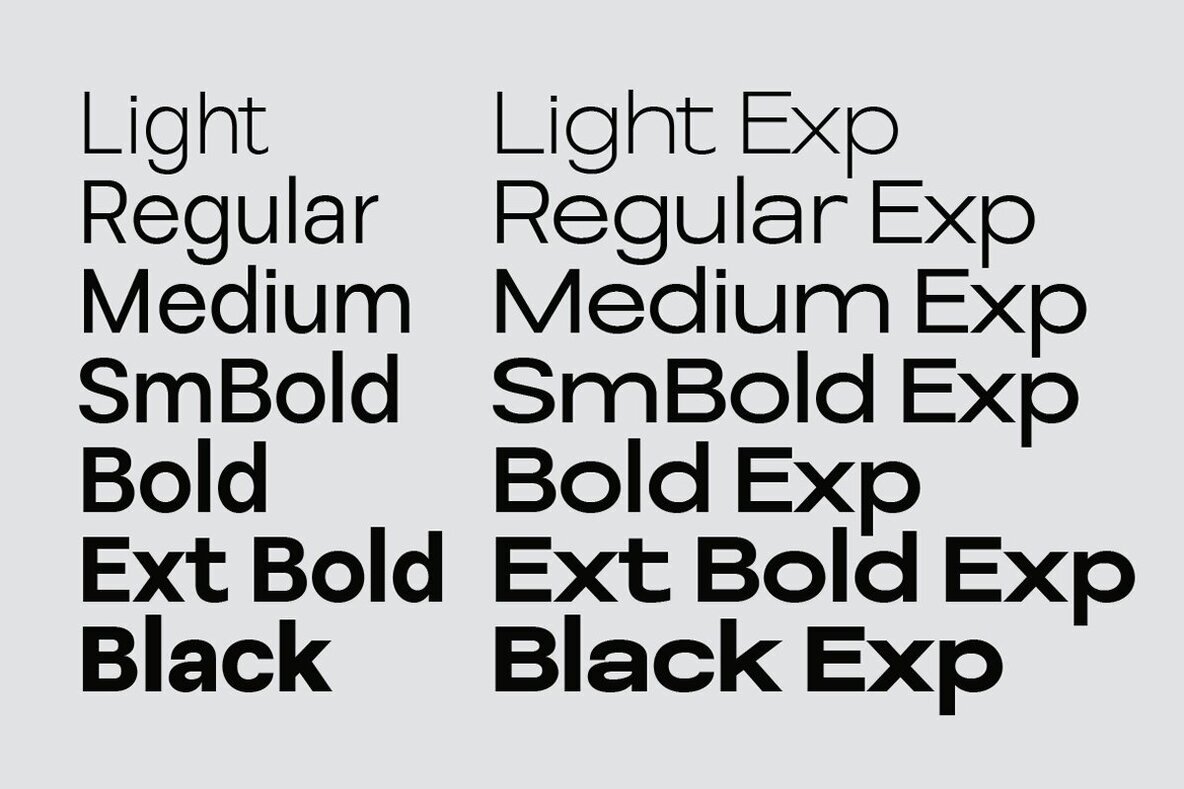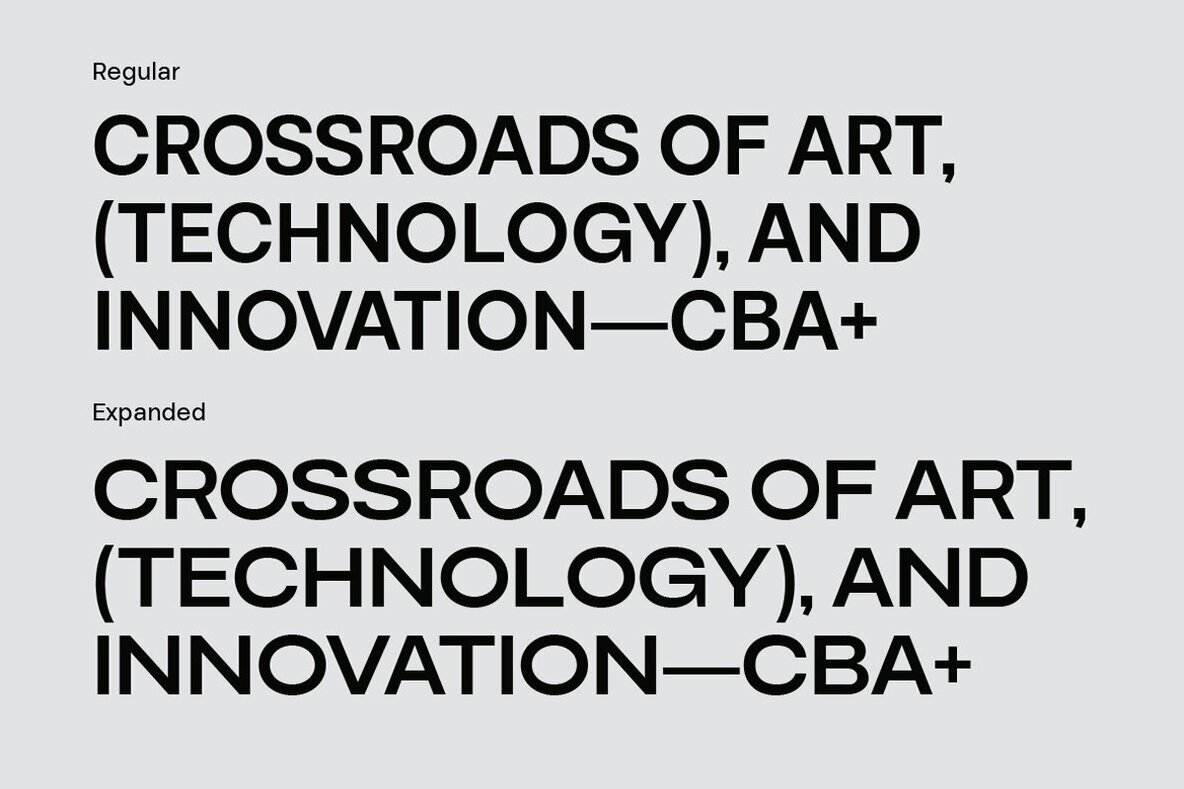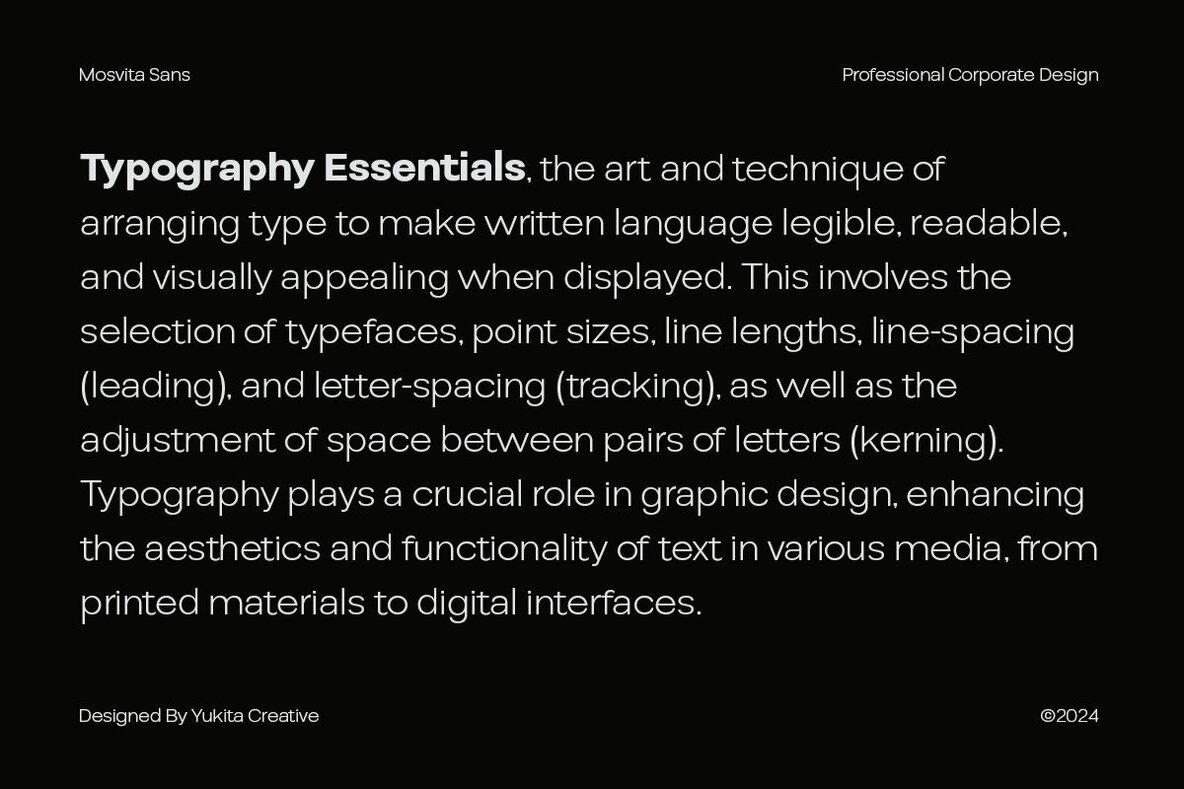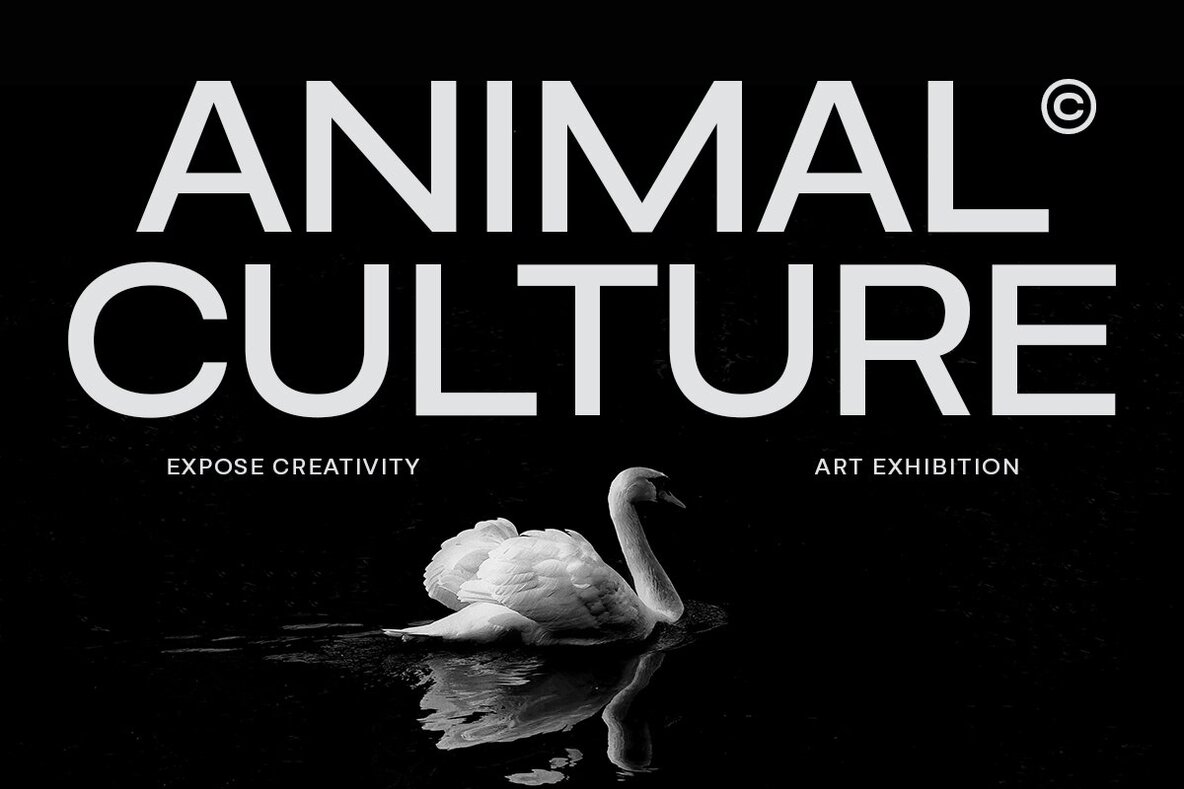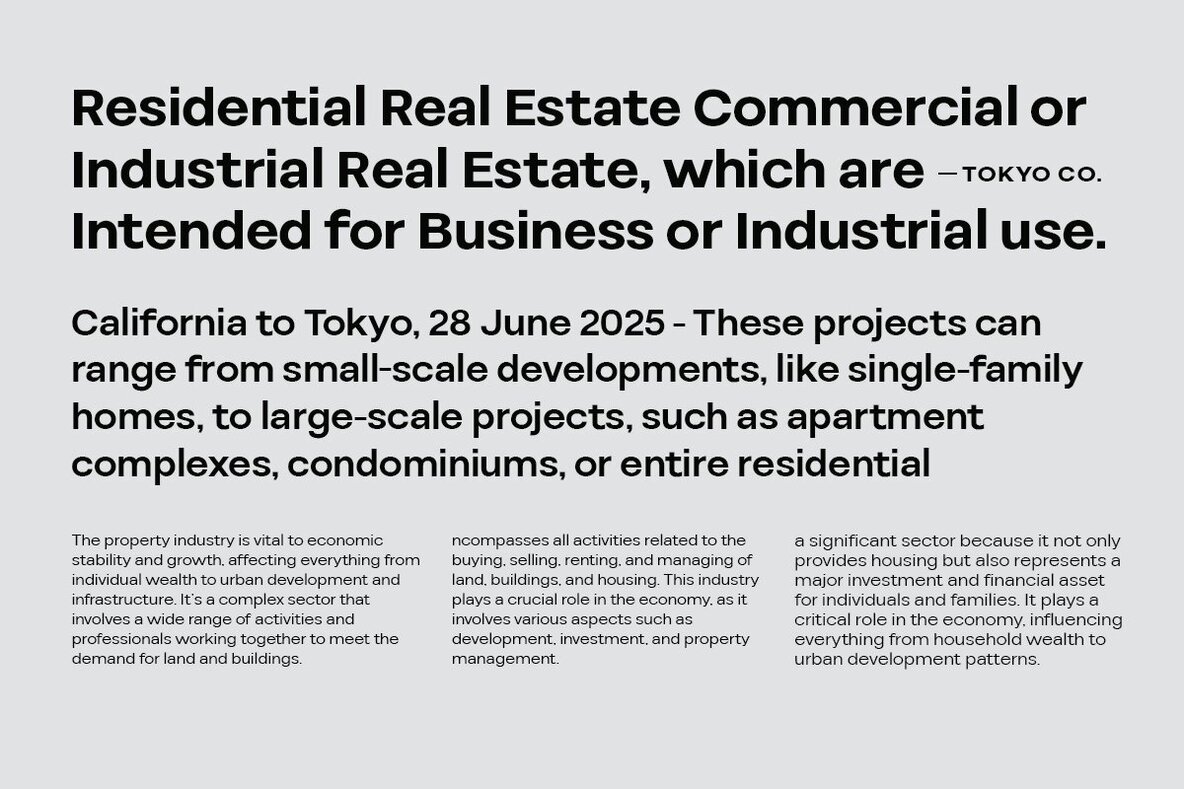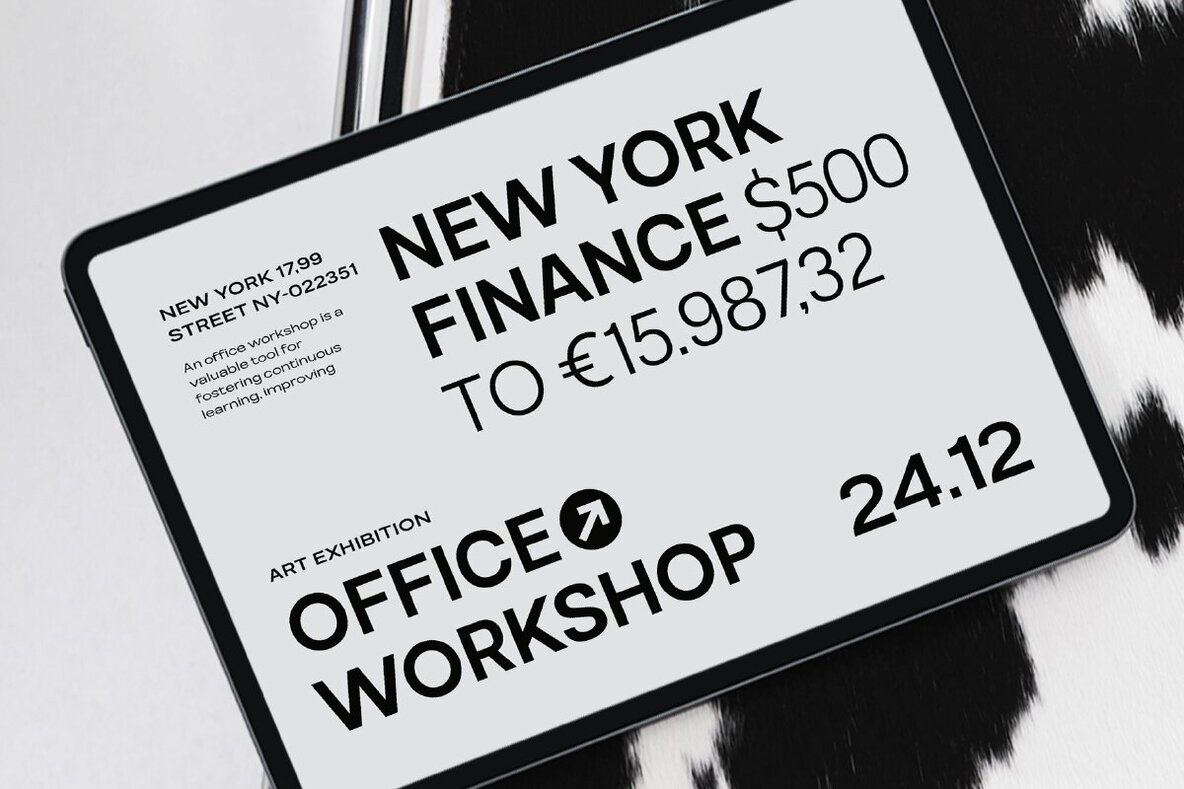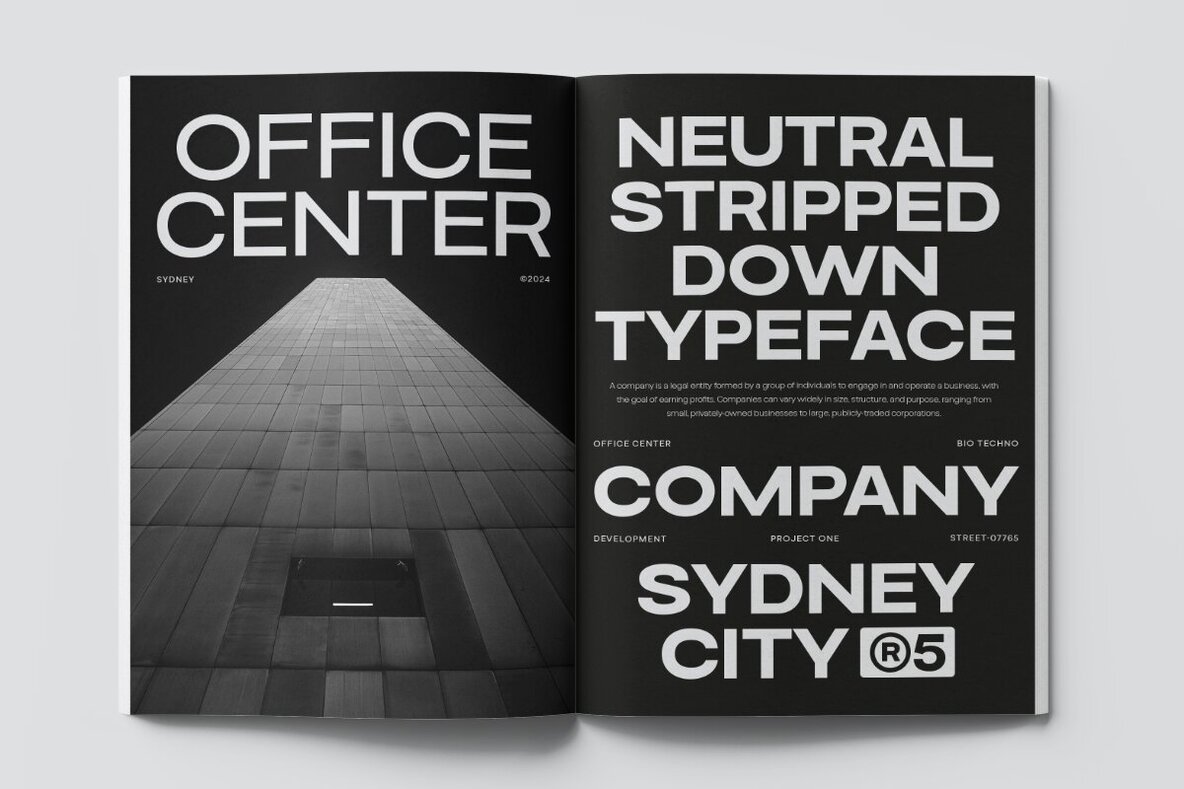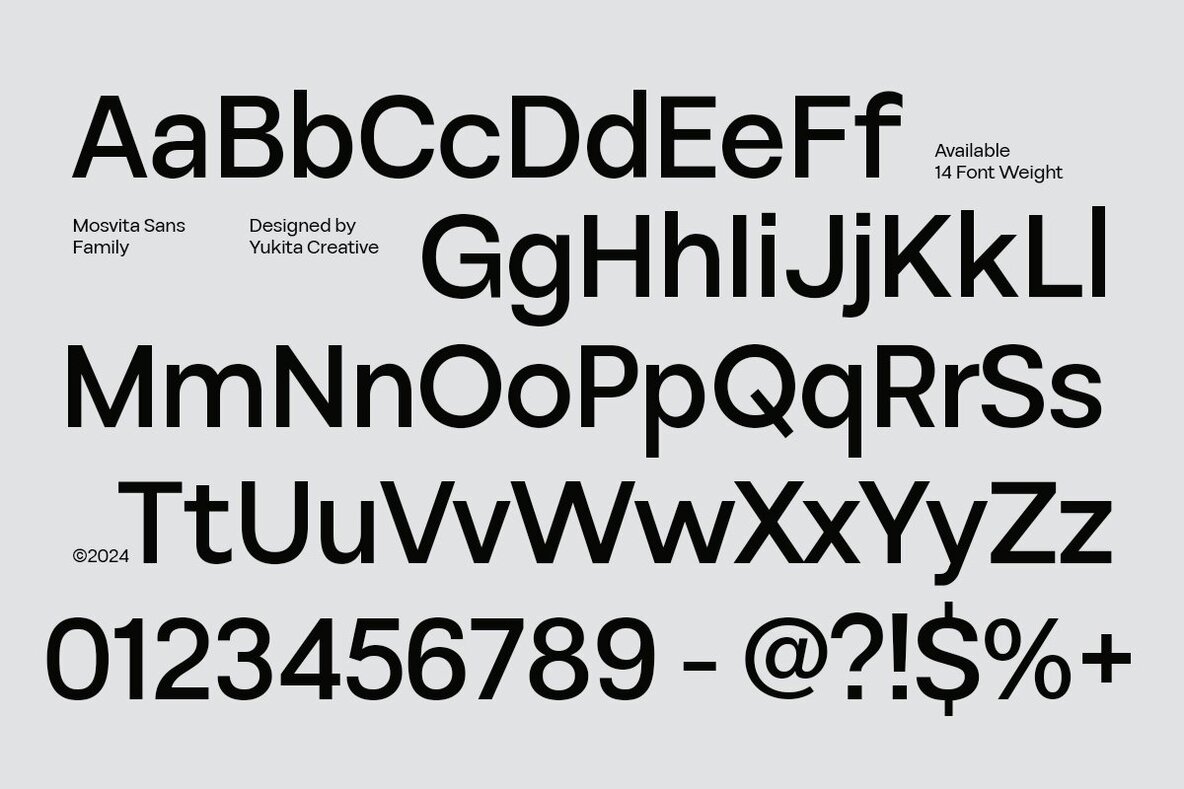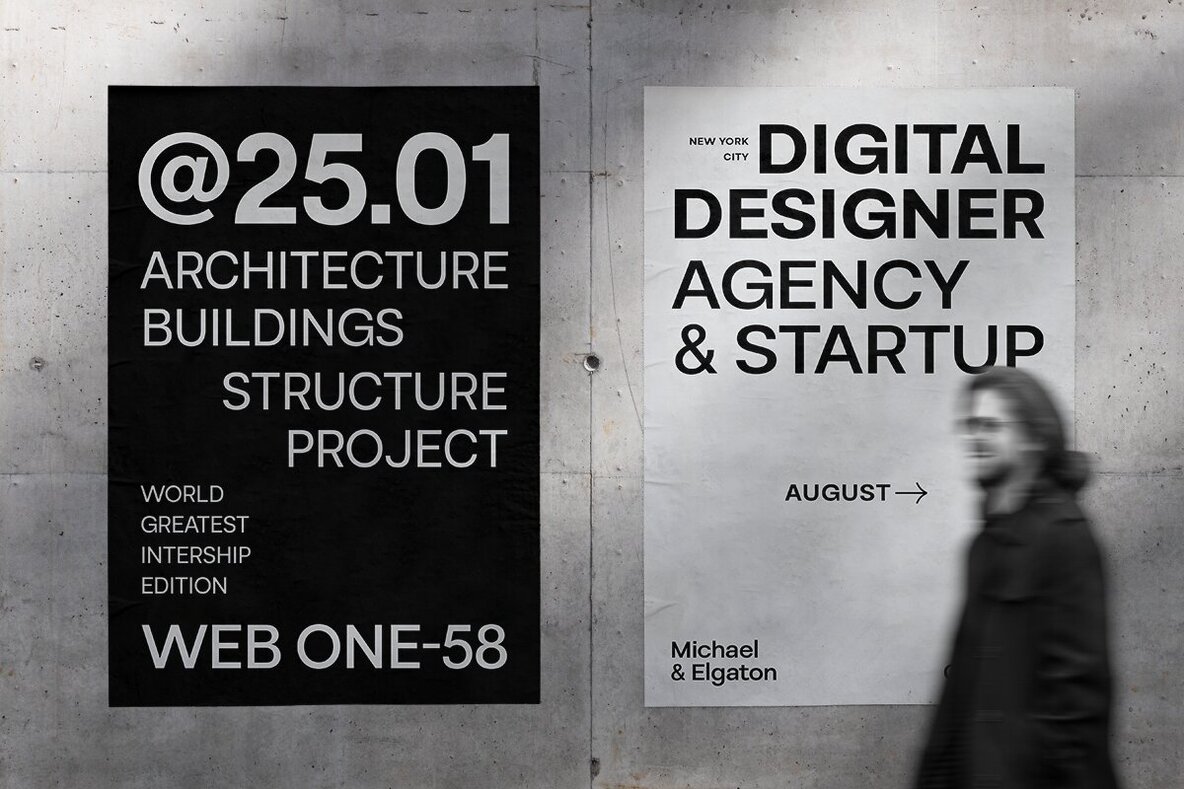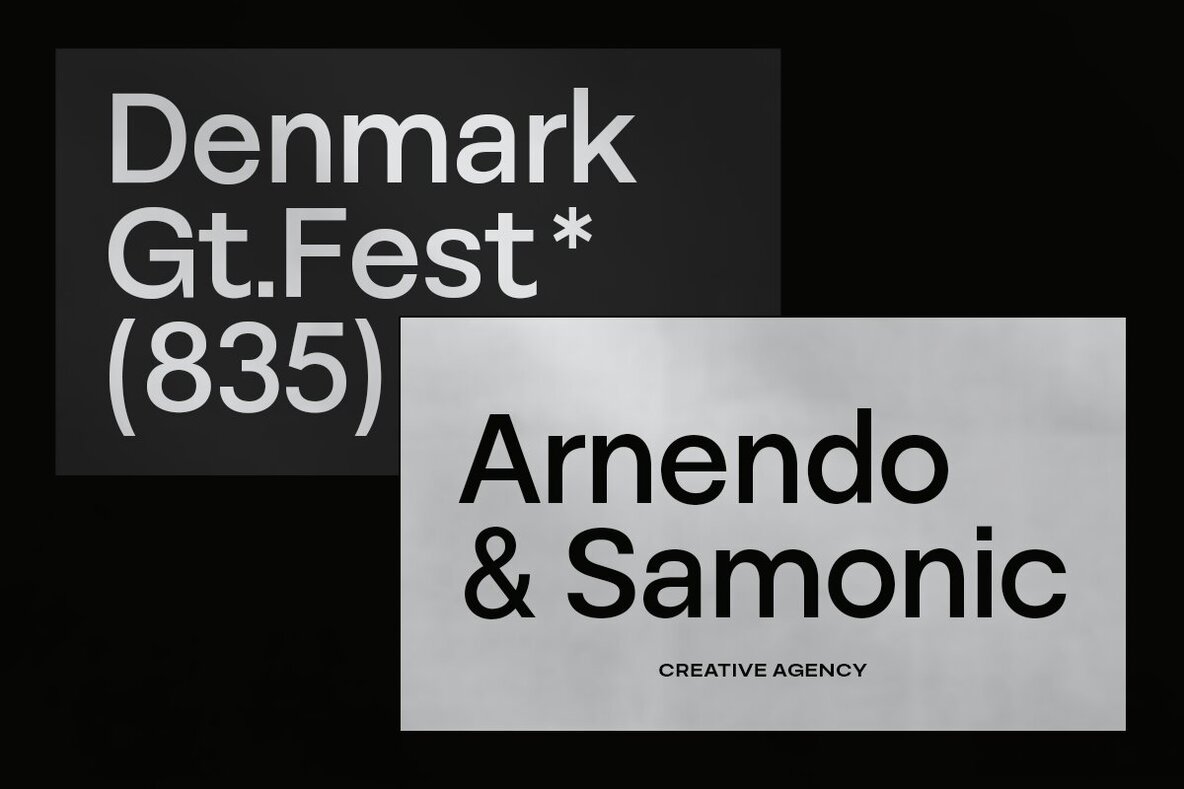
Mosvita Font
Mosvita Sans Serif Modern is crafted with a balance of contemporary aesthetics and readability. This font is an excellent choice for designers seeking versatility in their projects. With a total of 14 styles, including 7 normal widths and 7 expanded widths, it provides ample flexibility to suit various design needs. Its clean and modern design enhances the visual aspect of any project, ensuring clarity and ease of reading.
Ideal for a range of applications, from digital to print media, Mosvita elevates the visual quality of your work without relying on unnecessary embellishments. The high-quality design ensures that every letterform remains crisp and legible, making it suitable for everything from bold headlines to detailed text. Whether you are working on a branding project, website design, or editorial layout, this font provides a versatile toolkit to enhance your creative output.